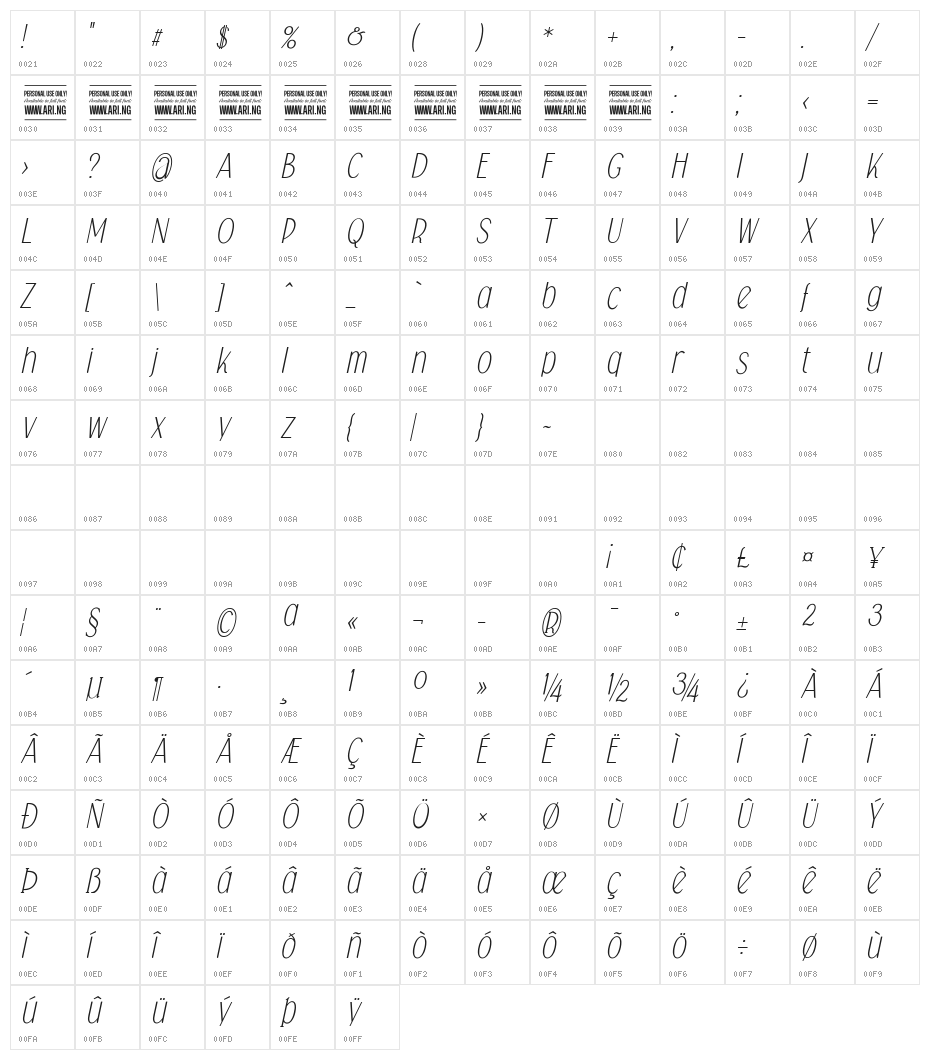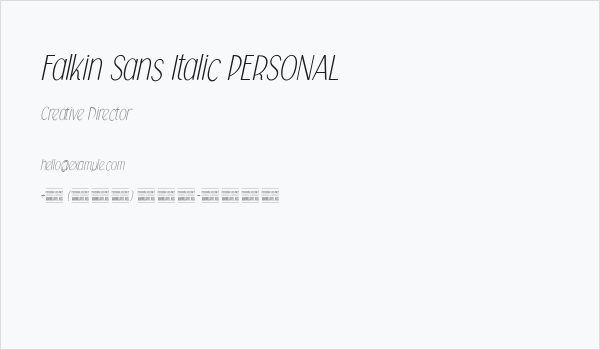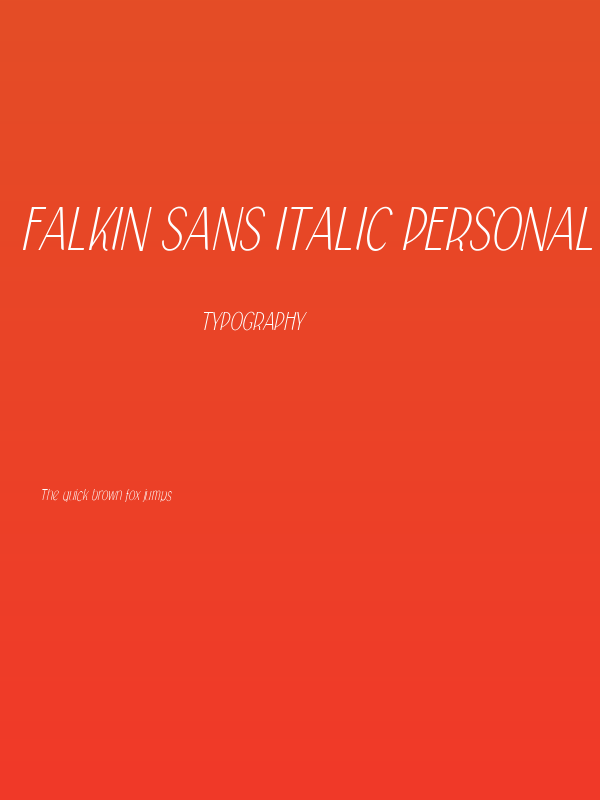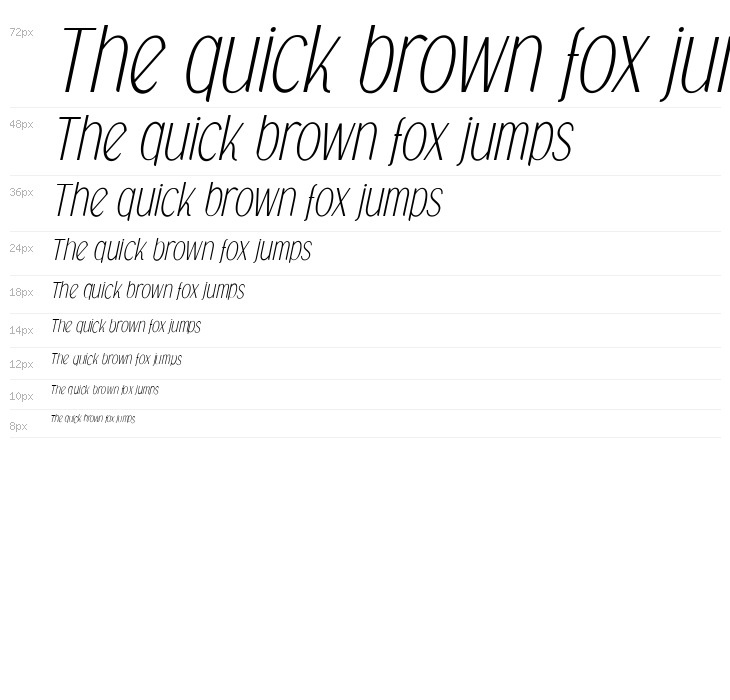
Falkin Sans Italic PERSONAL Font
Falkin Sans Italic PERSONAL Description
This font features a sleek and modern design with a distinct italic slant, giving it a dynamic and forward-leaning appearance. The characters are elongated with a consistent stroke width, creating a sense of elegance and fluidity. The uppercase and lowercase letters maintain a harmonious balance, while the numerals and special characters are crafted to complement the overall style. The font's clean lines and minimalistic approach make it versatile for various design applications.
| Proposed Projects | Ideal for branding, editorial design, fashion magazines, and modern web design projects. |